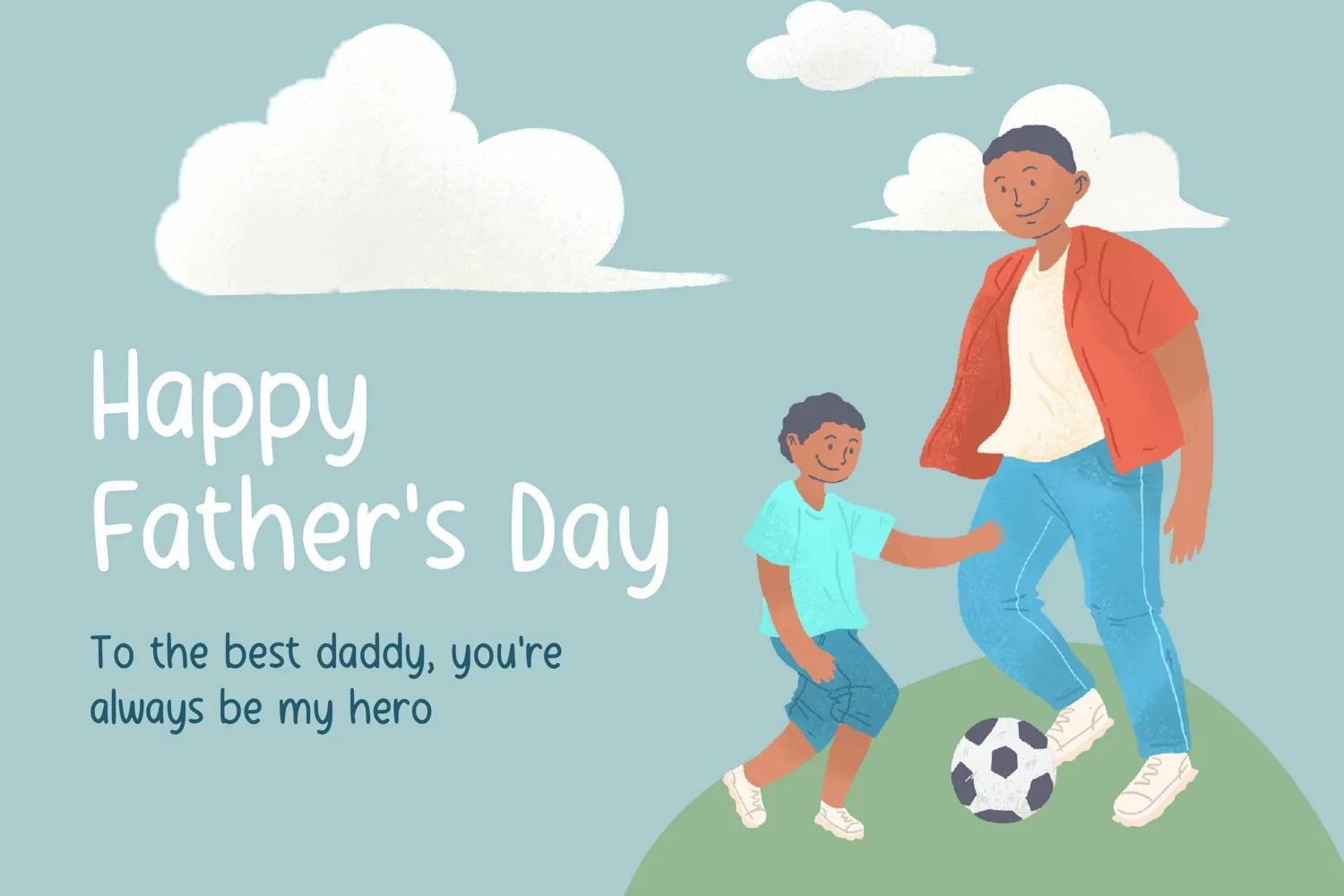
White Pinky
This casual handwriting font adds a touch of personality and charm to any project. With its organic, flowing lines and unique character, it captures the essence of natural handwriting while remaining legible and easy to read. The font is perfect for adding a natural touch to invitations, posters, social media graphics, and more. Its versatility makes it a great choice for a wide range of creative projects. Whether you're looking to add a fun and casual vibe or simply want to create something that stands out, this handwriting font is the perfect choice.